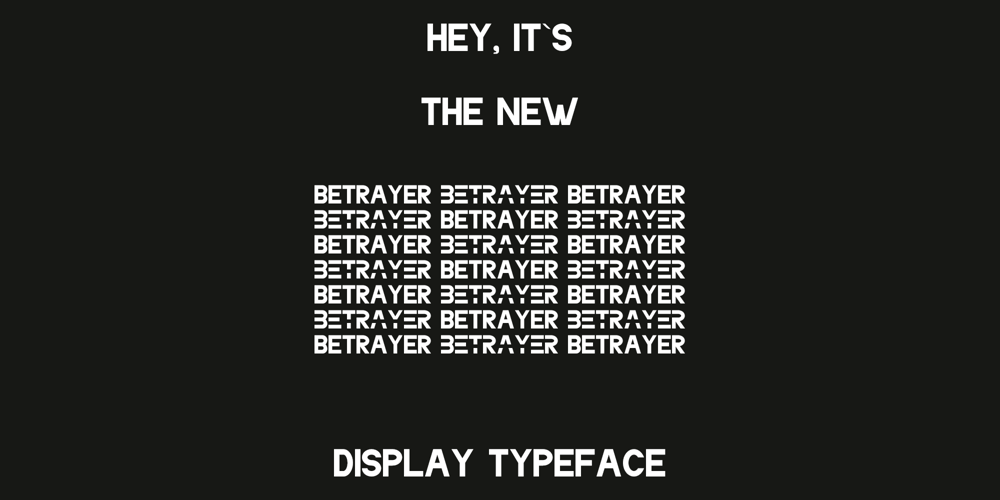
Betrayer Font Family was designed by Andrew Tomson and published by Andrew Tomson. Betrayer contains 1 styles and family package options. Hi, Friend!How often do people create their own logo? I think creative people, often do it. The question remains about originality and uniqueness… When I created this font, I thought about creating company and personal brand logos. You can use it to add a little bit of originality to your creation. Good luck and love to you!